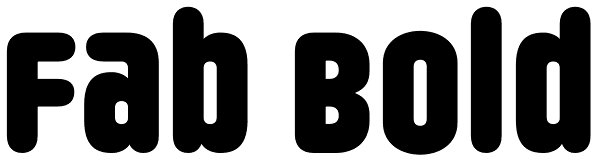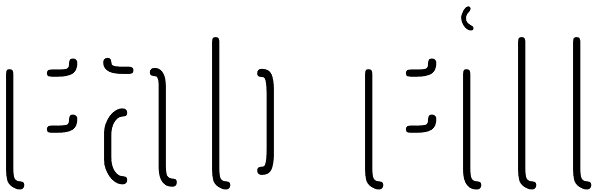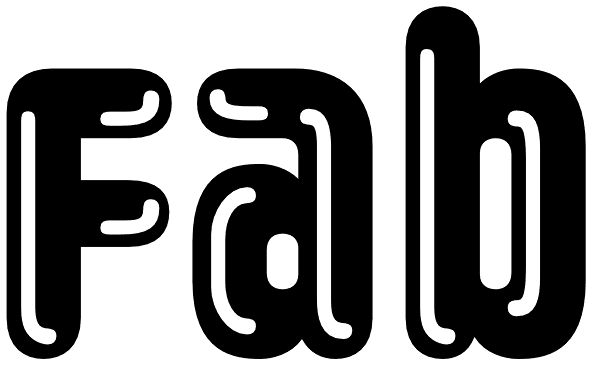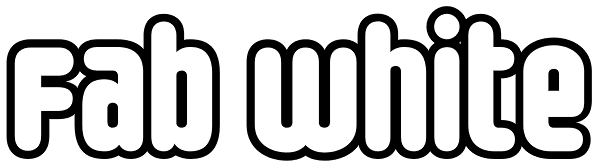
Fab
It's 1984 and everything has sideburns. Shoulder-padded "dress for success" is in, with power suits for women, black and white layers for men, neon brights for the youngsters. Maggie's "enemy within" and "no society" speeches preface the arrival of...